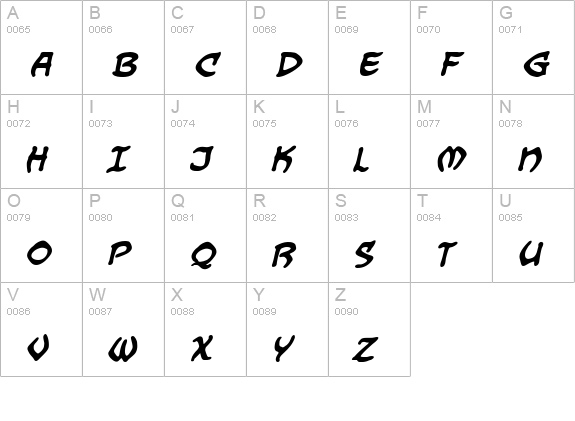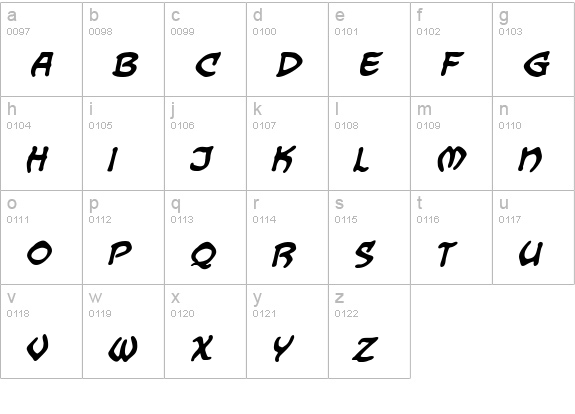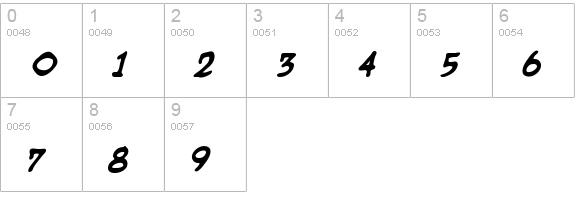
Dragonbones BB Bold Font Details
Dragonbones BB Bold is a strong, high-contrast variant in the Dragonbones typeface family \xE2\x80\x94 well suited to headlines, attention-grabbing titles, and strong calls-to-action.
Dragonbones BB Bold font is a bold and striking typeface that exudes power and strength. Its sharp edges and distinct characters make it perfect for headlines, titles, and any design that requires a bold statement. The font's unique style sets it apart from traditional serif and sans-serif fonts, making it a versatile choice for a wide range of projects. What sets Dragonbones BB Bold font apart is that it is free to download at FontsMarket.com. This means that you can easily access this eye-catching font without any cost, making it a valuable addition to your font library. Whether you're a designer looking to add a bold touch to your creations or a business in need of a powerful branding font, Dragonbones BB Bold font is a great choice that won't break the bank. Download it today and unleash the boldness of Dragonbones BB Bold font in your designs!